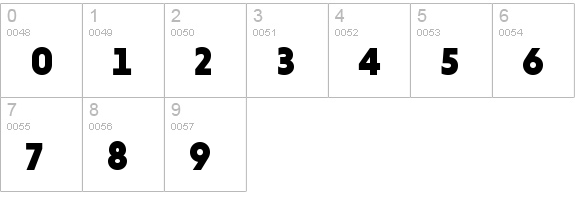
Niveau Grotesk Black Small Caps is a maximum-weight, dramatic variant in the Niveau typeface family \xE2\x80\x94 well suited to maximum-impact headlines, posters, and packaging.
Niveau Grotesk Black Small Caps font exudes a bold and commanding presence, making it an ideal choice for headlines, titles, and branding projects. Its sharp and modern design, combined with the small caps styling, adds a touch of sophistication and elegance to any text. The strong vertical emphasis and clean lines of this typeface ensure excellent readability even at smaller sizes. The Niveau Grotesk Black Small Caps font is a versatile addition to any designer's toolkit, capable of making a statement in both print and digital mediums. Whether used in editorial layouts, posters, logos, or web design, this font commands attention and leaves a lasting impression. Best of all, Niveau Grotesk Black Small Caps font is freely available to download at FontsMarket.com. Now you can elevate your designs with this premium typeface without any cost barrier. Don't miss out on the opportunity to enhance your projects with the bold and impactful Niveau Grotesk Black Small Caps font.